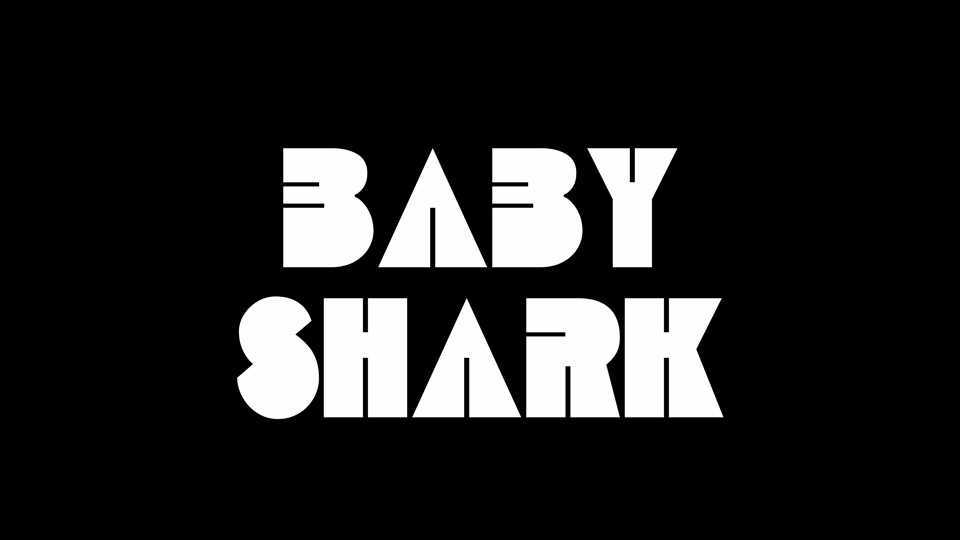
Download Baby Shark font, a big and bold geometric display typeface made with Runebender. It’s chunky and funky look is perfect for eye-catching posters, impact headlines and impressive graphics.
Designer: Eli Heuer